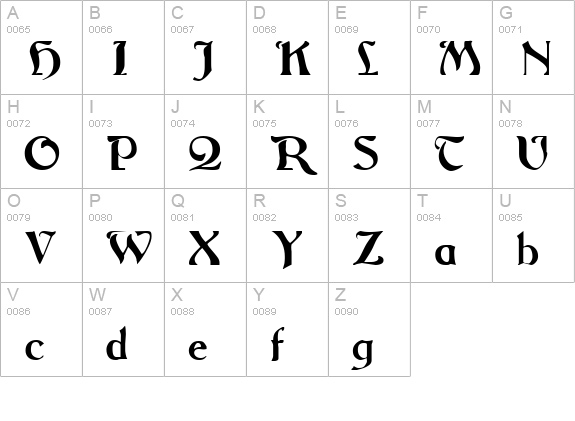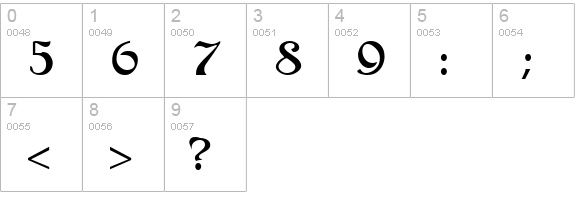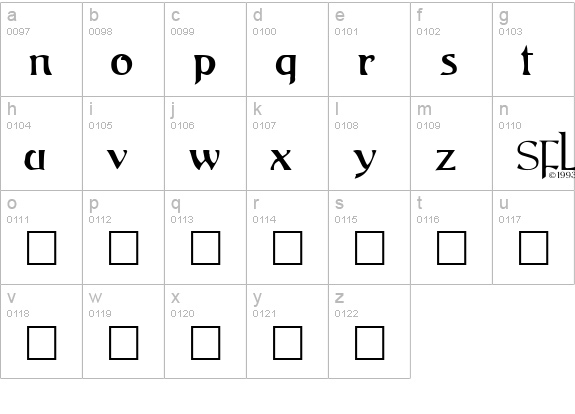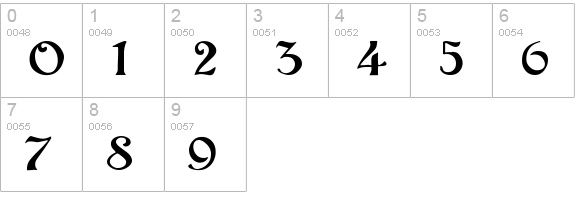
Bucephalus Font Details
The Bucephalus font is a stunning display font that exudes elegance and sophistication. Its sleek lines and modern design make it perfect for a wide range of projects, from branding to invitations to social media graphics. With its bold and eye-catching appearance, Bucephalus is sure to make a statement and captivate your audience. Best of all, the Bucephalus font is completely free to download at FontsMarket.com. Now you can add a touch of class to your designs without breaking the bank. Don't miss out on this fantastic opportunity to elevate your projects with the Bucephalus font today!